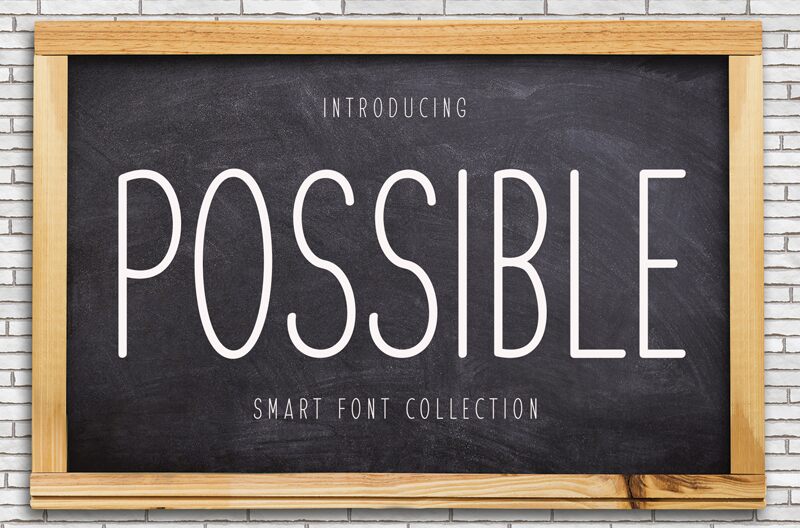
Possible
The Possible font, designed by Etik Fatimah, exudes a captivating handwritten charm with its light, condensed strokes. This expressive typeface invites a sense of warmth and authenticity, effortlessly blending personality and legibility. The fluid, organic lines and subtle variations in stroke weight lend a genuine, hand-crafted feel, creating a visually engaging and approachable aesthetic.
This versatile font lends itself well to a variety of design contexts, from editorial layouts and branding materials to packaging and social media content. Its condensed width makes it an ideal choice for projects requiring a space-efficient yet impactful typographic treatment, while the light weight ensures readability across different sizes and mediums.